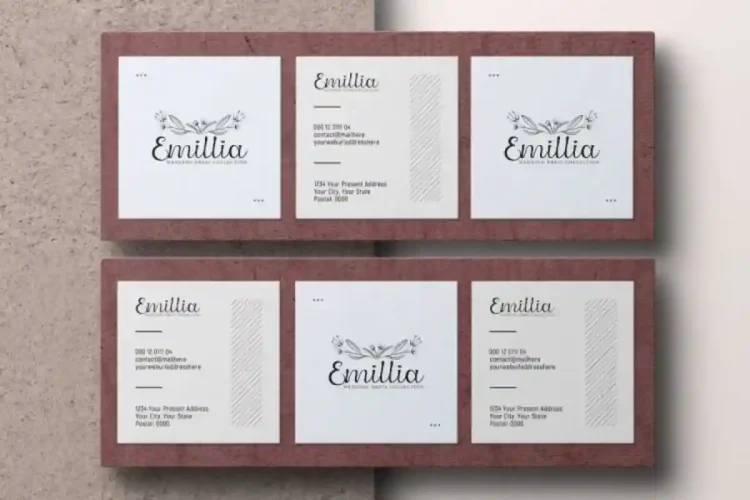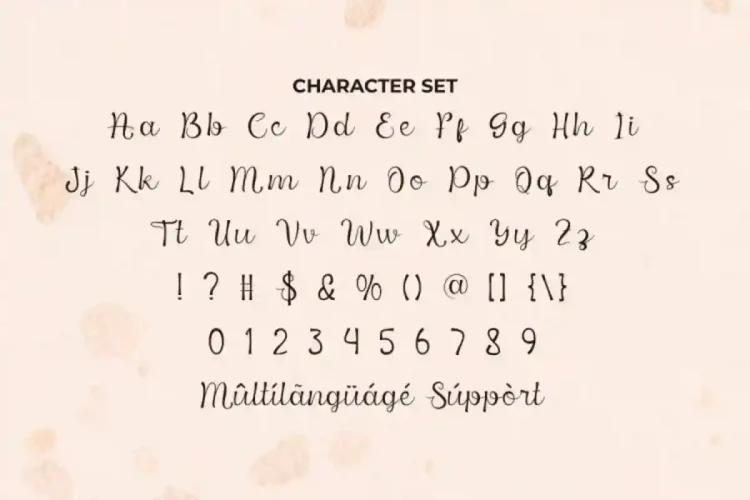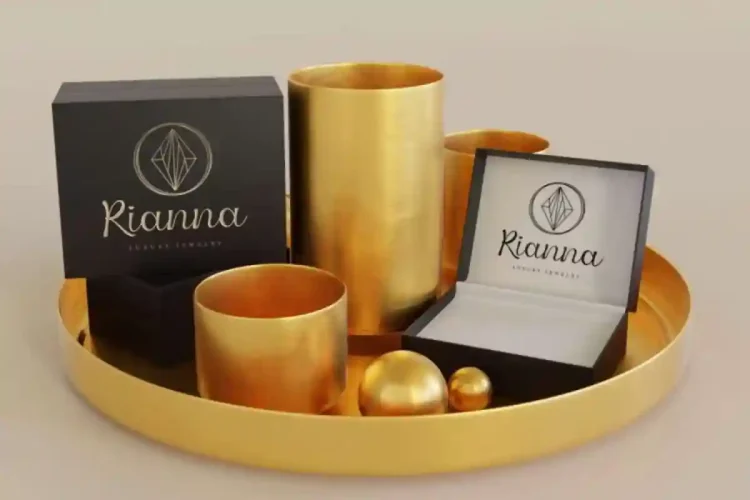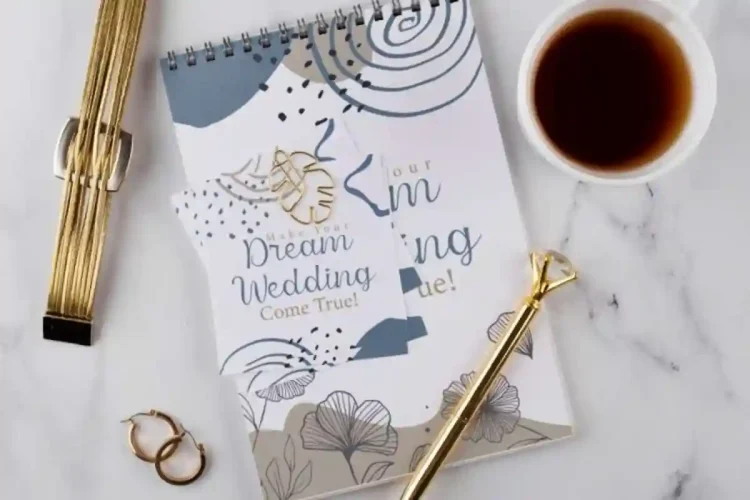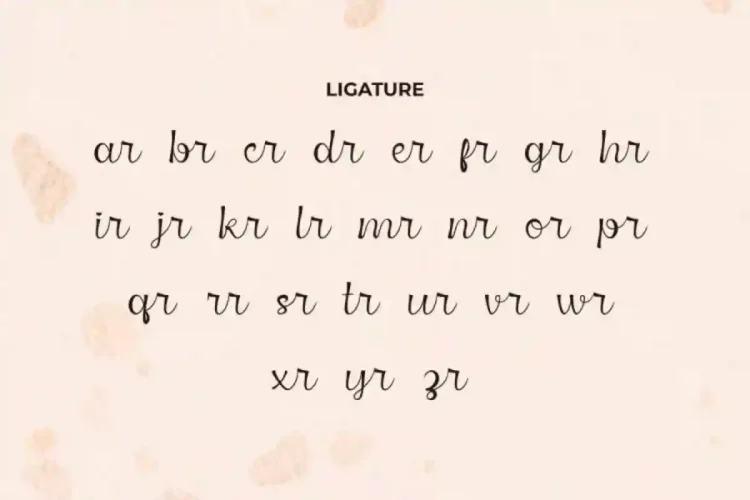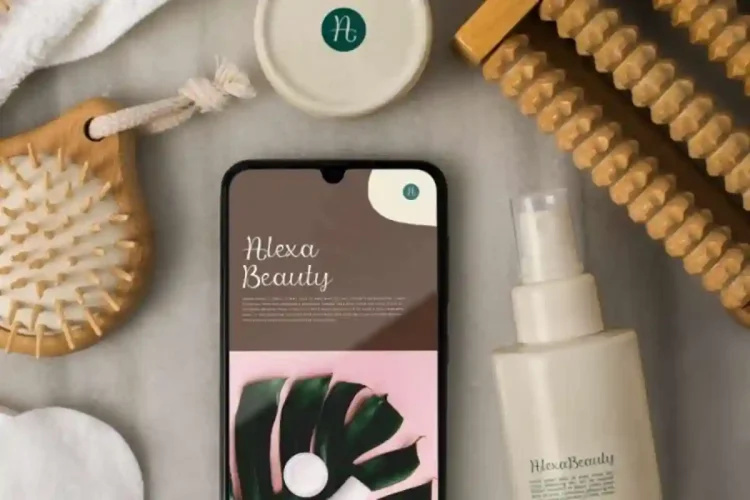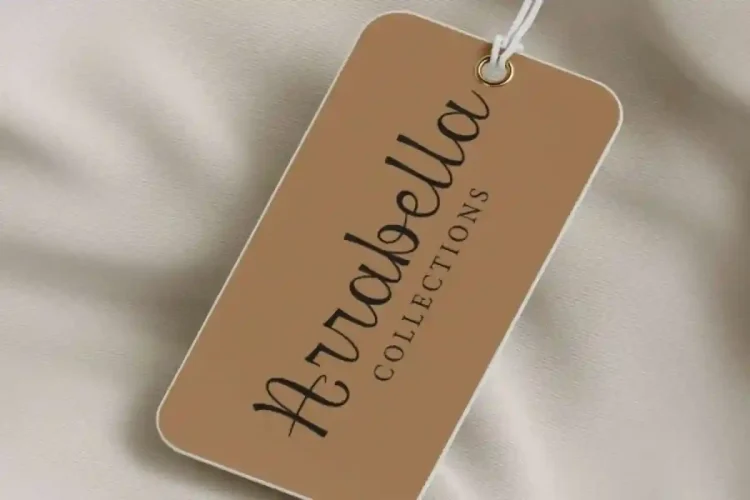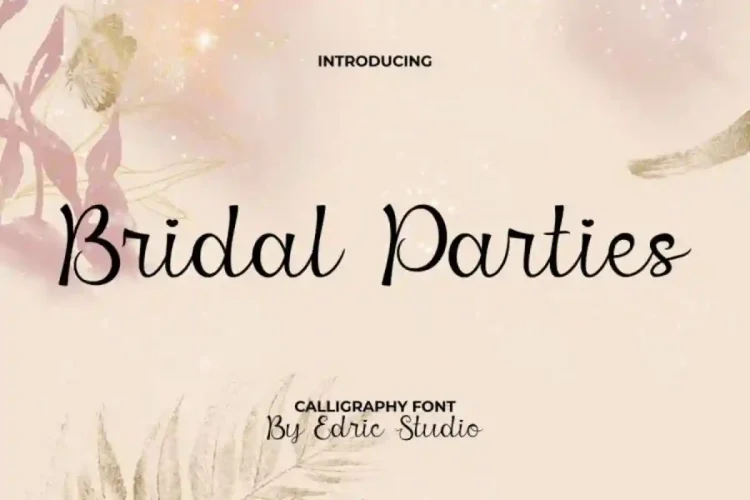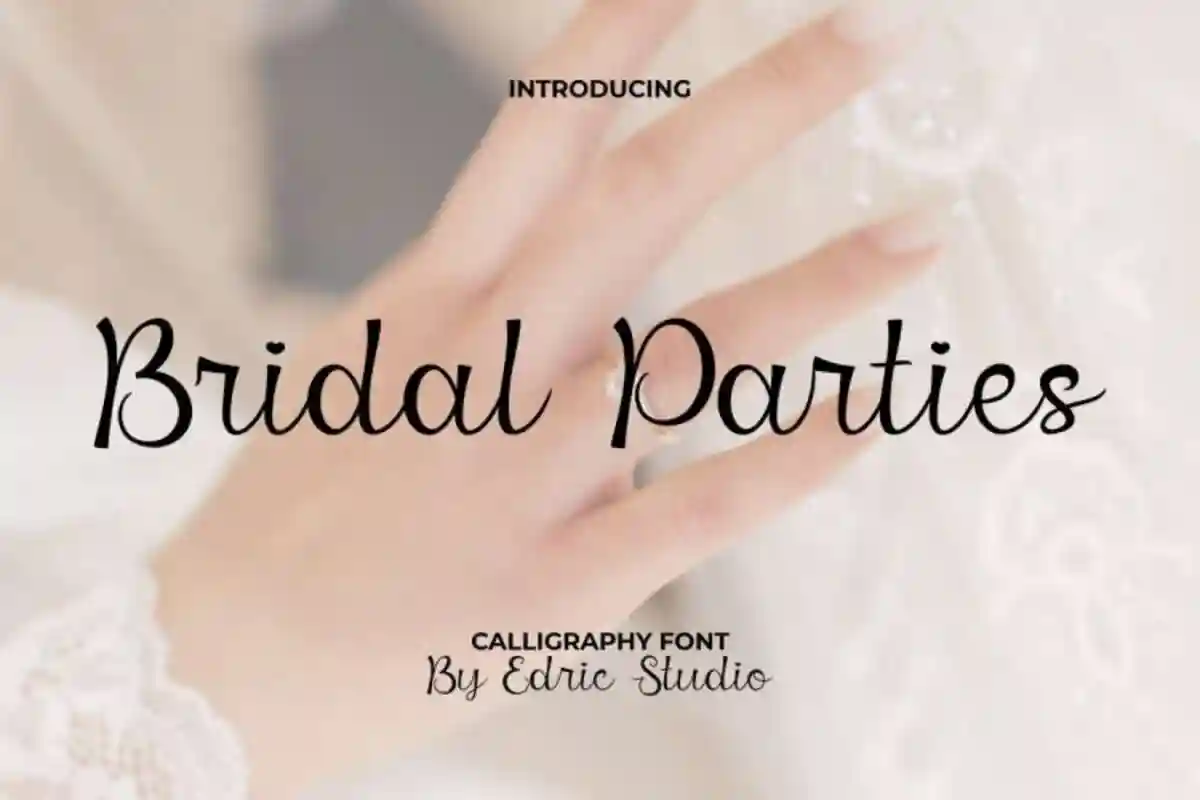
Bridal Parties Font is a beautiful calligraphy font from EdricStudio. Designed to radiate beauty and sophistication, this font is the perfect choice for projects that require a feminine and natural touch.
Bridal Parties Calligraphy Font with its flowing strokes and refined style, it enhances your work with a personal and artistic feel It has a stunning characters set, perfectly managed with well spaced and kerning.